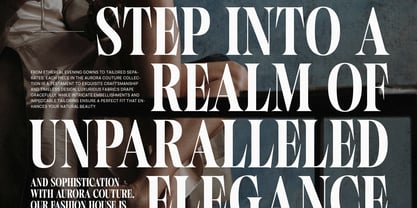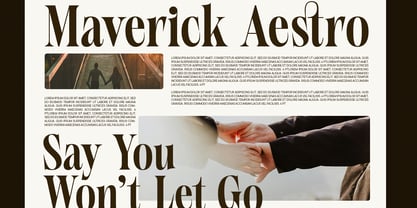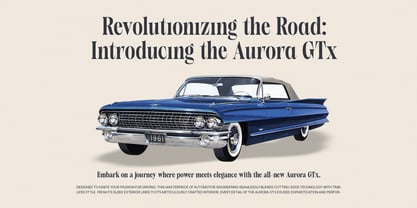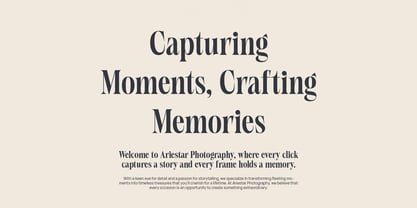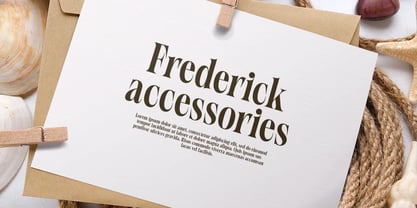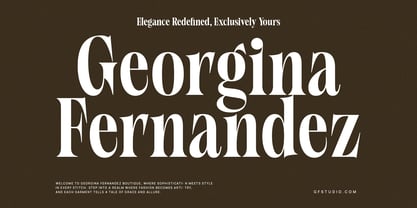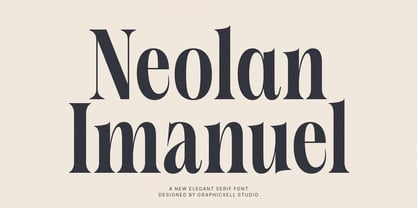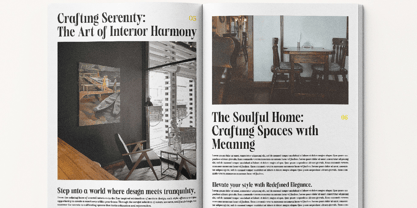
Neolan Imanuel
Neolan Imanuel – Modern Elegant Serif Font
Neolan Imanuel is a bold and elegant serif font that combines strong design with timeless style. Featuring thick strokes and sharp, pointed terminals, this font carries a modern look with subtle classic elements. Its balance of strength and sophistication makes it perfect for both bold headlines and refined branding.
With a clean yet stylish structure, Neolan Imanuel suits many different design styles. It’s especially great for fashion, editorial layouts, and luxury branding. The font comes in regular and italic variants, giving you flexibility for both display and text use. From logo design to magazine titles, it always delivers clarity and charm.
Additionally, this font includes a set of functional ligatures. These features allow you to craft custom typography that feels personal and unique. Whether you’re working on modern logos or vintage-style posters, Neolan Imanuel adapts effortlessly.
Great for:
• 🖋️ Logo design and premium branding
• 📰 Editorial titles, articles, and magazines
• 🎞️ Movie posters and song covers
• 🛍️ Product packaging, fashion ads, and websites
• 🖥️ Canva templates, social media, and billboards
Because of its versatility, Neolan Imanuel is also perfect for book layouts, boutique branding, stylish food menus, invitations, and more. Whether you're working on digital or print, this font makes your message bold and beautiful.
So, if you're looking for a font that blends modern strength with classic elegance, Neolan Imanuel is the perfect choice. Use it to make your work more striking, readable, and memorable.